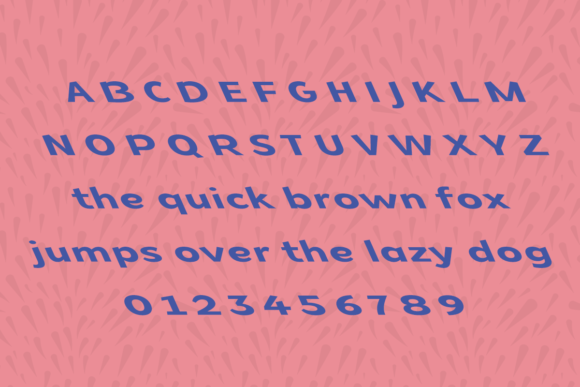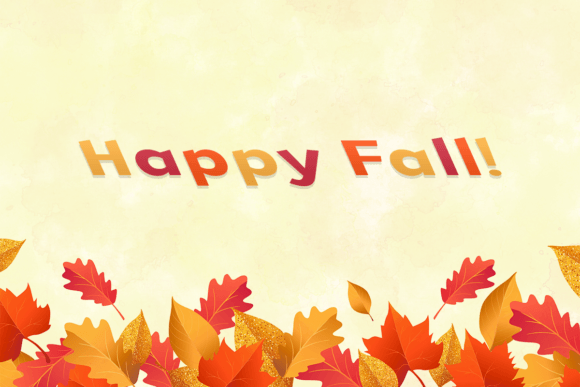
The Ultimate Guide to Crazy Perspective Font: Adding a Fun Flair to Your Designs
I’ll never forget the time I was working on a project for a client who wanted a bold, eye-catching font to make their poster stand out from the crowd. I scoured the internet for hours, trying out different fonts, but nothing seemed quite right. That was until I stumbled upon Crazy Perspective Font. It was love at first sight! 😍 The unique, fun design instantly caught my attention, and I knew I had found the perfect fit for my client’s project.
An Honest Review of Crazy Perspective Font
Crazy Perspective Font is a cool display typeface that has become a staple in my design toolbox. Here’s what I love about it:
- ✨ Unique and quirky design that adds a fun flair to any project
- ✅ Highly versatile and perfect for a variety of projects, from sublimation on shirts and mugs to creating funky posters
- 🌈 Great for making a bold statement and grabbing the viewer’s attention
While Crazy Perspective Font is an amazing addition to any design, it’s not without its quirks. Here are a few things to keep in mind:
- 🤔 The font can be a bit tricky to read at smaller sizes, so it’s best used for headlines or titles
- ⚠️ Some of the glyphs and stylistic alternates can be a bit finicky, so be prepared to experiment and play around with the font to get the desired effect
The Backstory Behind Crazy Perspective Font
Crazy Perspective Font was designed by a team of creatives who wanted to create a font that would add a fun and unique flair to any design. Inspired by the world of graffiti and street art, the font features bold, geometric shapes and a playful sense of perspective. The designers wanted to create a font that would be perfect for making a bold statement and grabbing the viewer’s attention.
| Font Name | Crazy Perspective Font |
| Author | Misti |
| What is Crazy Perspective Font? | Crazy Perspective Font is a cool display typeface designed to add a unique and fun flair to your designs. |
| What kind of projects is Crazy Perspective Font best suited for? | Crazy Perspective Font is perfect for a variety of projects, including sublimation on shirts, mugs, tote bags, and more. It’s also great for creating funky posters that really stand out from the crowd. |
| Is Crazy Perspective Font easy to read? | Crazy Perspective Font is a display font designed to make a bold statement, so it’s best used for headlines or titles. While it can be a bit tricky to read at smaller sizes, it’s perfect for grabbing the viewer’s attention and adding a fun flair to your designs. |